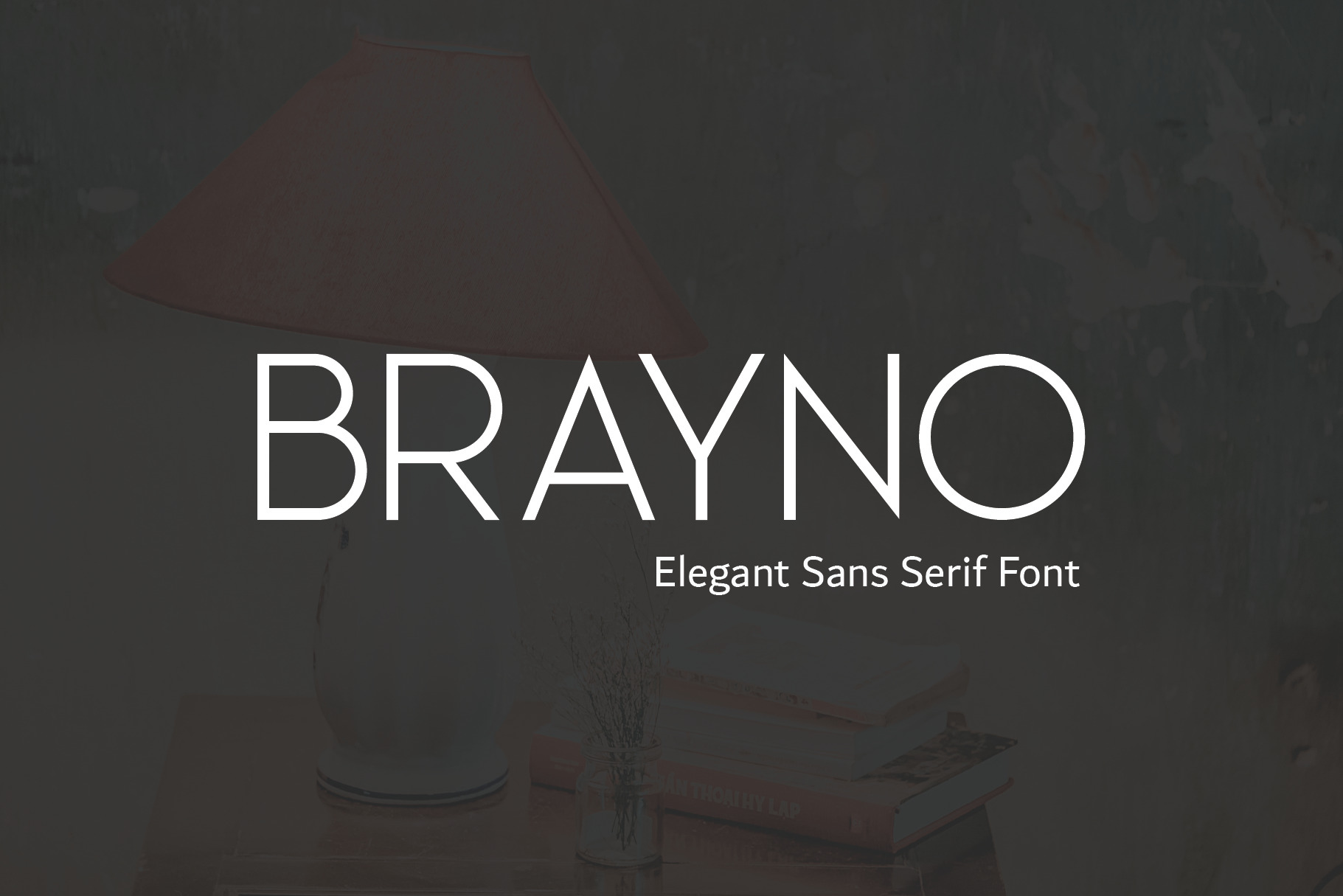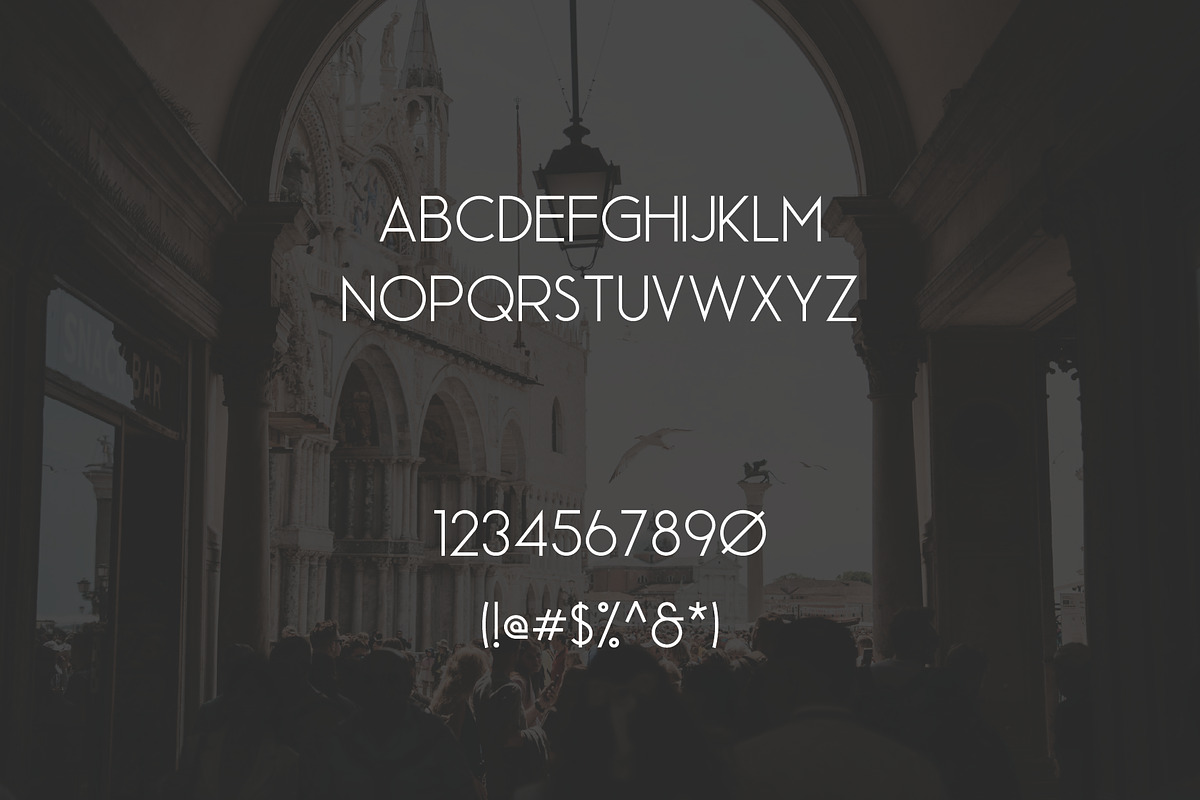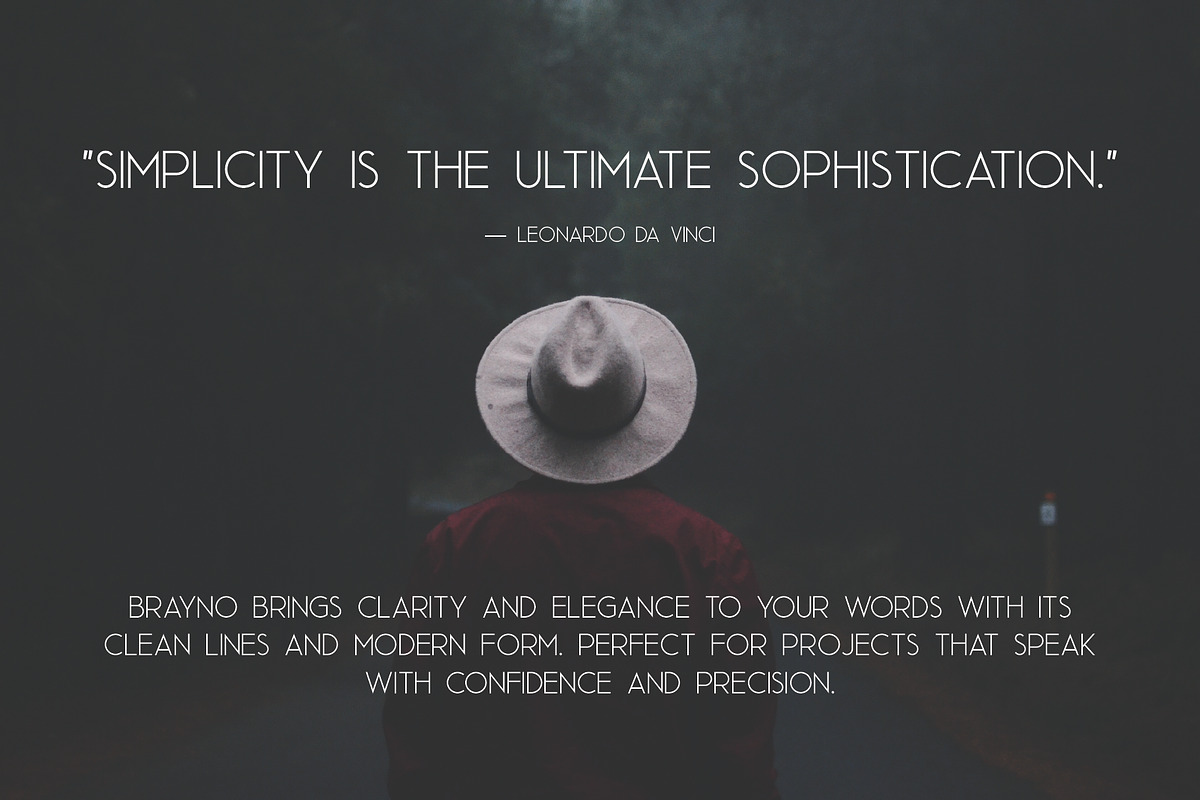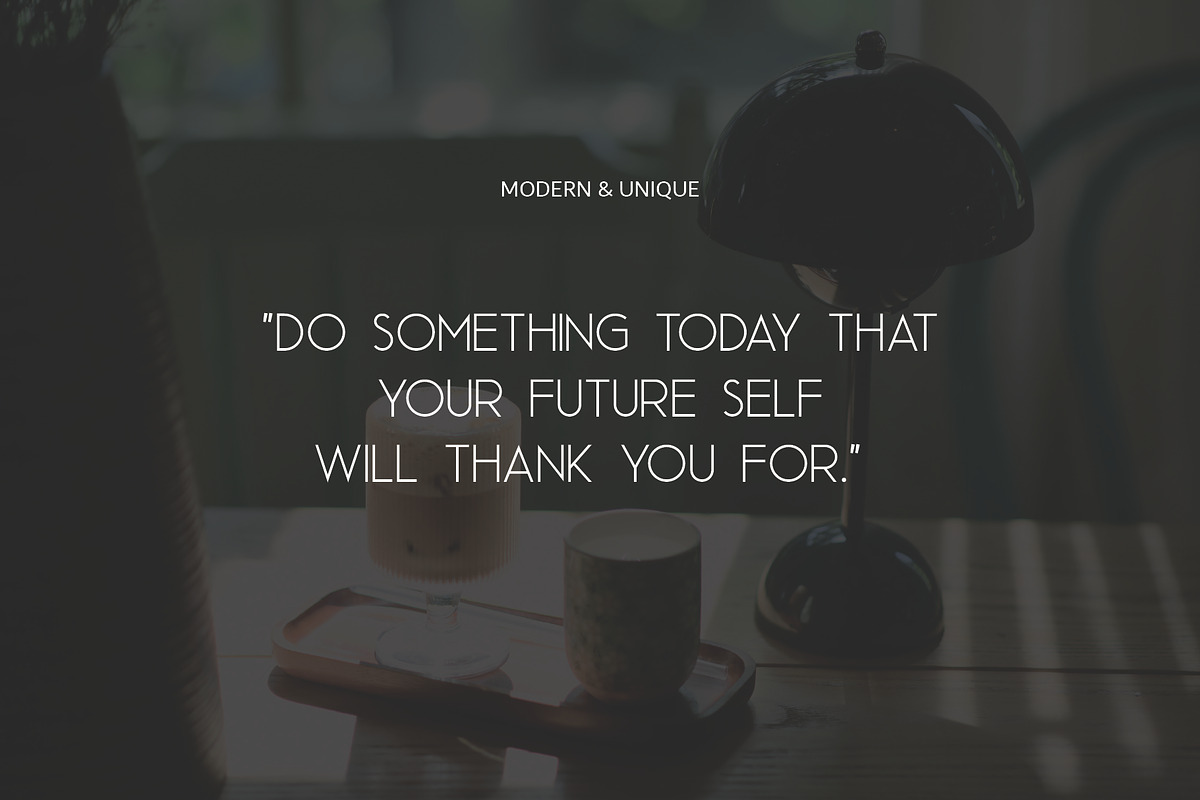
Brayno | Modern Sans Serif Font
Brayno is a versatile and stylish sans serif font designed to bring a modern, minimal aesthetic to your creative projects. With clean lines and a refined structure, Brayno is ideal for logos, branding, packaging, social media graphics, invitations, and editorial layouts.
Its balanced and professional look makes it suitable for both headlines and body text, ensuring consistency and clarity across all design applications.
Brayno is the perfect choice for designers seeking a clean and contemporary typeface that delivers both style and versatility.